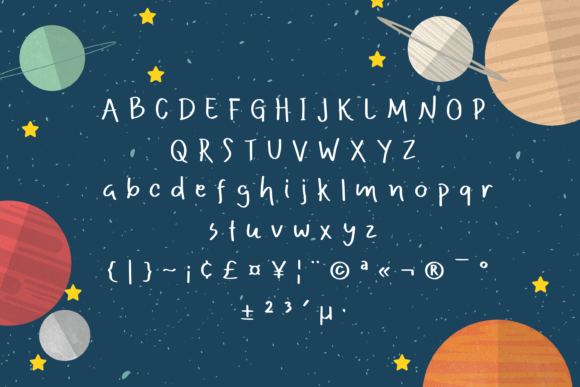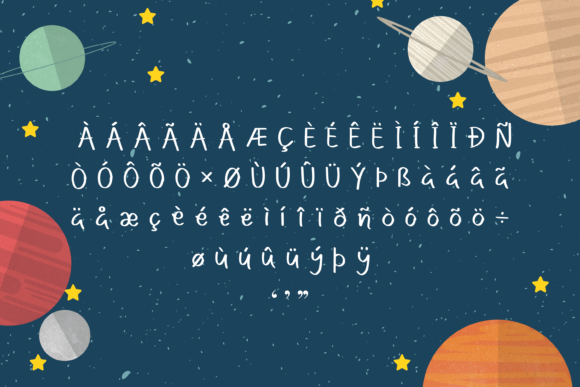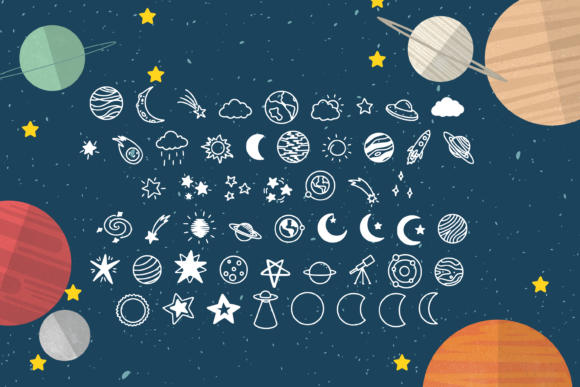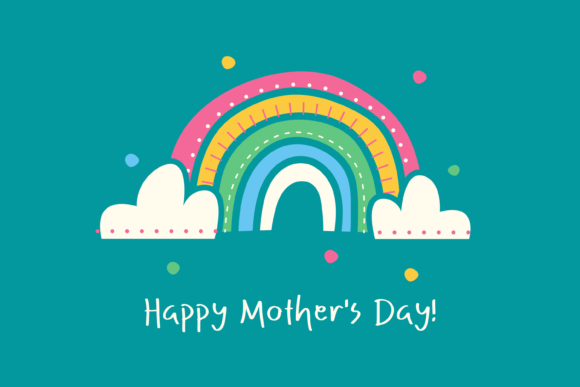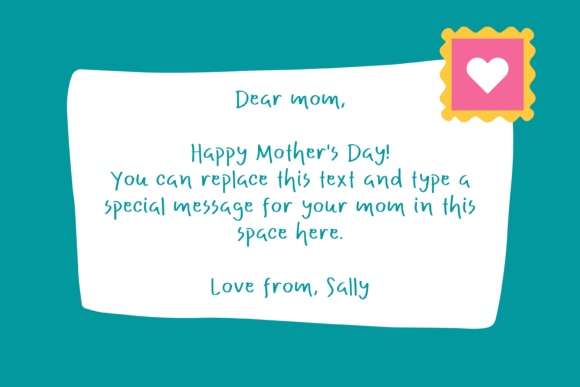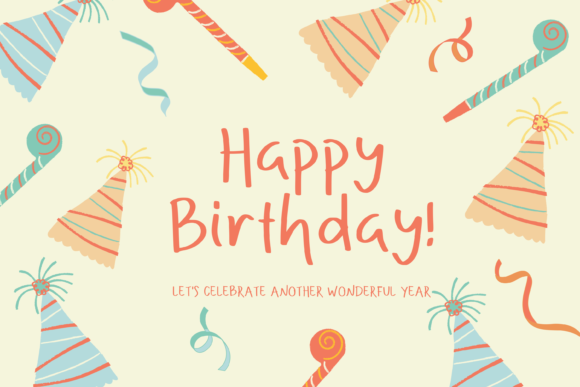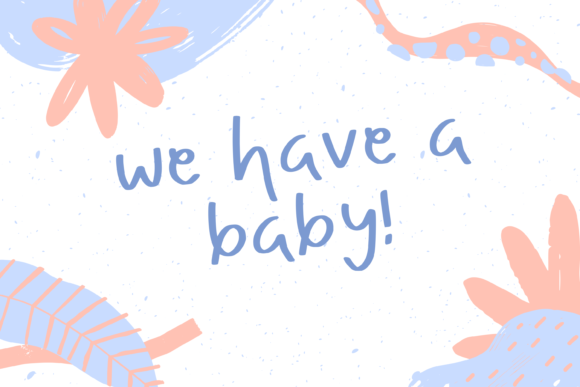
Spaceally Font
About Spaceally Font
Spaceally is a simple and casual handwritten font. This adaptable font will look great on a variety of design ideas. It will add a fun and friendly touch to each of your projects!